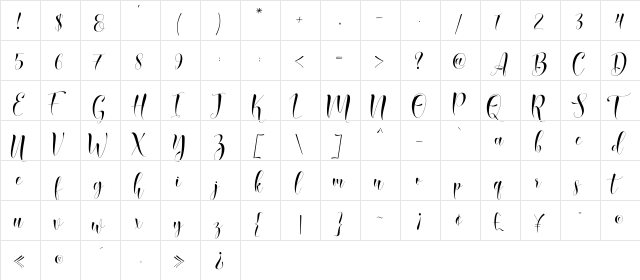
Qasmi Script Regular
| Foundry | Khurasan |
| Designer | Khurasan |
Design Context for Qasmi Script Typeface
Qasmi Script brings a calligraphic fluidity to the page — its connecting strokes and expressive curves give it an unmistakably human quality.
Font Pairing: Combine Qasmi Script with a simple geometric sans for maximum contrast — the tension between flowing curves and clean structure is a classic typographic pairing.
Pro Tip: Pair Qasmi Script with a clean sans-serif for supporting text. The contrast between fluid script and geometric structure creates an elegant typographic hierarchy.